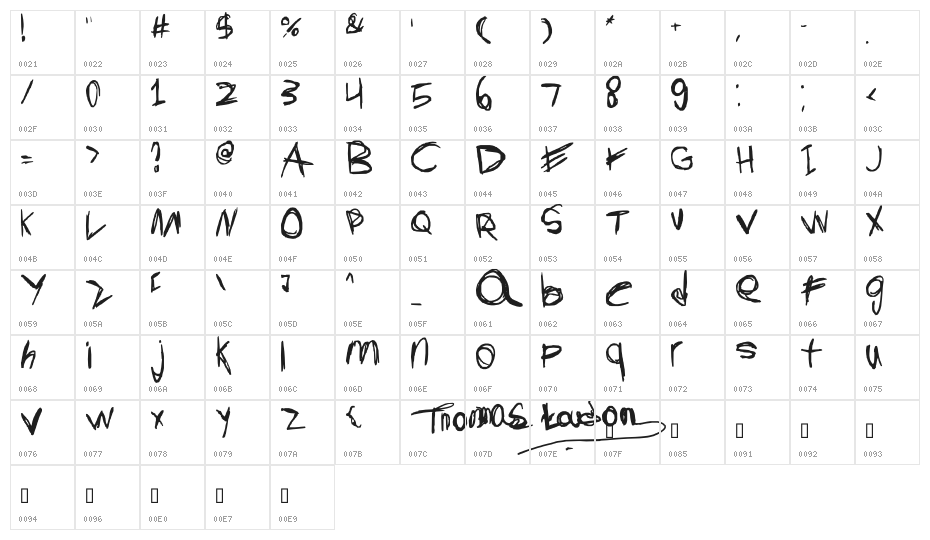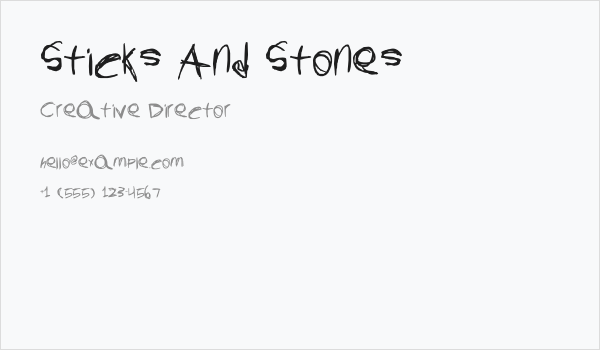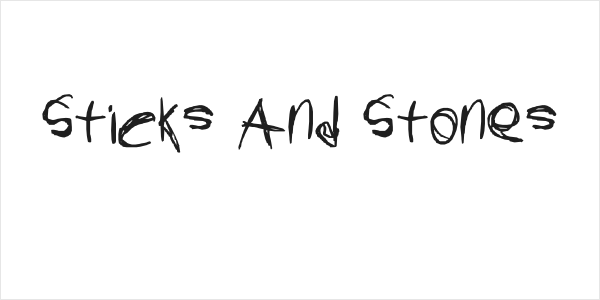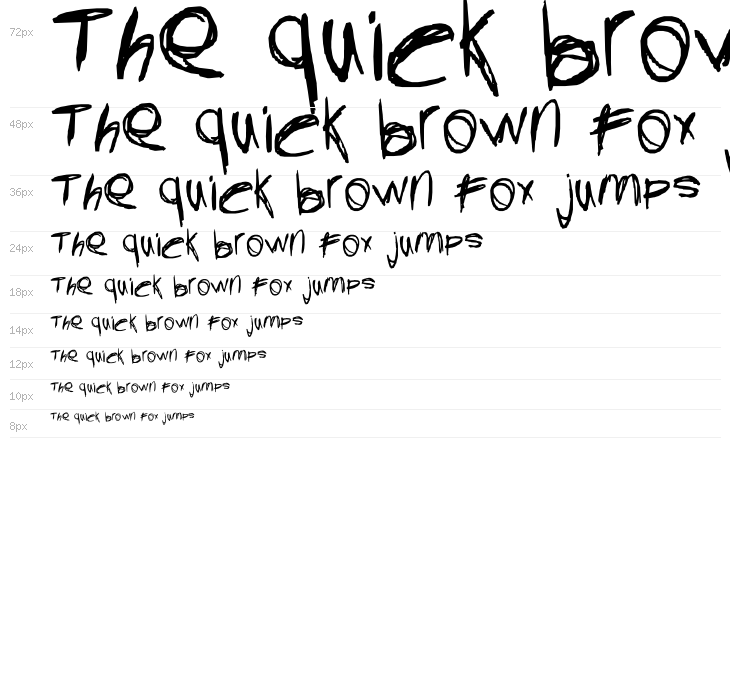
Sticks And Stones Font
Sticks And Stones Description
This font exudes a raw, hand-drawn aesthetic reminiscent of graffiti or street art. Each character is uniquely crafted with irregular strokes, giving it a rugged and edgy appearance. The letters are bold and expressive, with an uneven baseline that adds to its dynamic and spontaneous feel. The uppercase and lowercase letters maintain a consistent style, while the numbers and special characters follow suit with the same energetic flair. This font is perfect for projects that require a bold statement or an urban, rebellious vibe.
| Proposed Projects | Ideal for street art designs, edgy posters, music album covers, and urban-themed branding. |